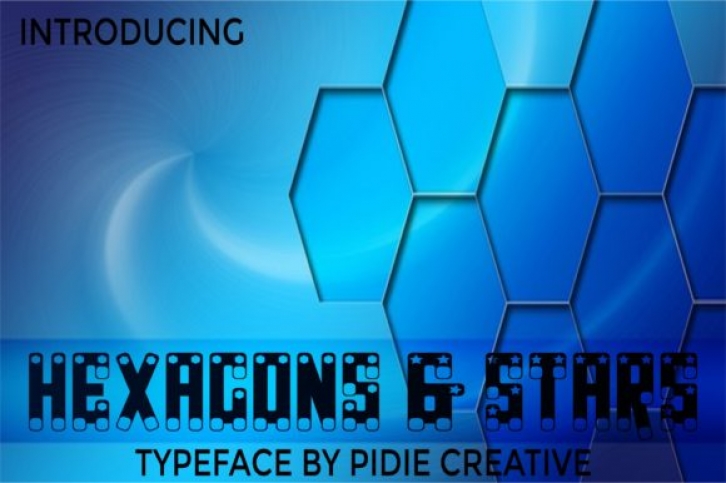
Hexagon & Stars is a unique and modern display font. It is decorated with a hexagon in the initial letter and a star in the second letter makes it unique and interesting. This font is suitable for poster design for products. This font is also very suitable for use in magazines as a title or cover, logos, posters, designs, etc.